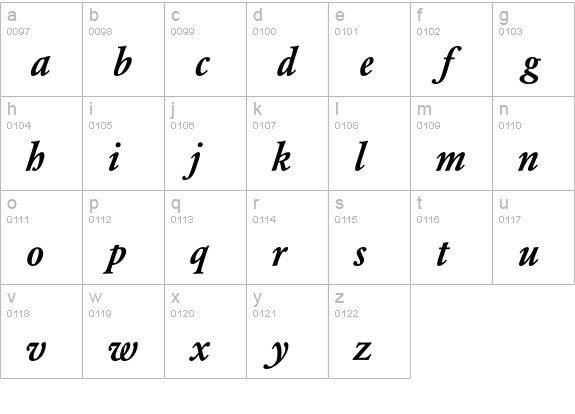
Garamond ExpBQ Medium ItalicOsF is a balanced, medium-weight variant in the Garamond typeface family \xE2\x80\x94 well suited to sub-headlines, navigation, and balanced editorial work.
Garamond ExpBQ Medium ItalicOsF font is a stunning and versatile typeface that effortlessly combines elegance with readability. Its medium weight and italic styling add a touch of flair and sophistication to any design project. This font is perfect for conveying a sense of classic beauty, making it an ideal choice for editorial layouts, branding materials, and luxury packaging. With its pronounced serifs and graceful curves, Garamond ExpBQ Medium ItalicOsF font exudes a timeless charm that can elevate any text. Whether used for headlines, subheadings, or body copy, this font brings a sense of refinement and professionalism to any composition. The availability of Garamond ExpBQ Medium ItalicOsF font for free download at FontsMarket.com makes it even more appealing and accessible. Designers and typographers can now effortlessly incorporate this exquisite typeface into their projects without any financial constraints. Its freely accessible nature allows for unlimited creativity and experimentation, enabling designers to explore the full potential of this remarkable font. Download Garamond ExpBQ Medium ItalicOsF font today from FontsMarket.com and unlock a world of design possibilities. With its timeless elegance and effortless legibility, this font is sure to make a lasting impression on any audience. Embrace the beauty of Garamond ExpBQ Medium ItalicOsF font and elevate your designs to new heights of sophistication.